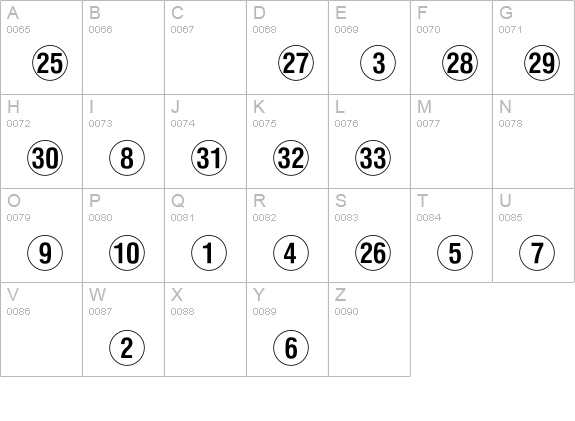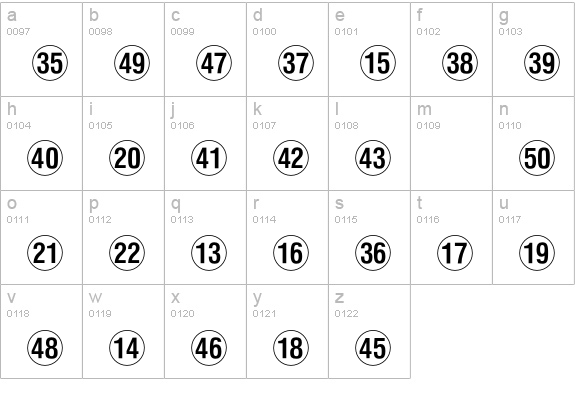
NumericsP02 Font Details
NumericsP02 is an elegant and modern sans-serif font that combines sleek lines with a touch of sophistication. Perfect for both digital and print designs, NumericsP02 exudes a sense of professionalism and clarity. Its clean and easy-to-read design makes it ideal for various projects, from branding to editorial layouts. The best part is that NumericsP02 is available for free download at FontsMarket.com. This means you can enhance your creative projects with this stylish and versatile font without any cost. Whether you're a designer looking to add a contemporary twist to your work or a business owner seeking a polished look for your branding materials, NumericsP02 is the perfect choice. Don't miss out on the opportunity to elevate your designs with this exceptional font, now conveniently accessible for free at FontsMarket.com.